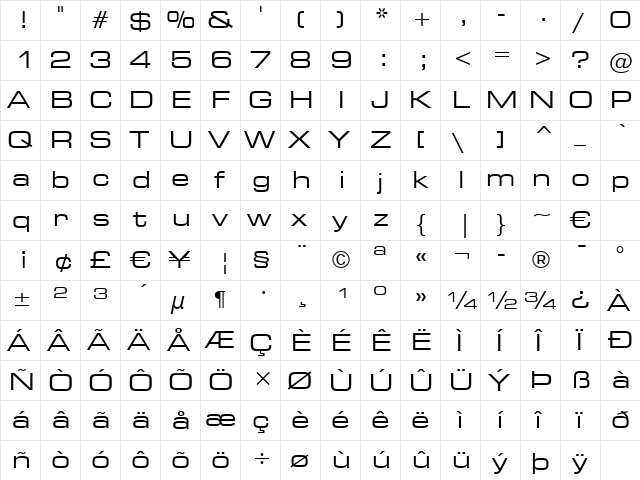
Square721 Ex BT Roman
Design Context for Square721 Ex BT Typeface
Square721 Ex BT takes a measured approach to typography — its balanced proportions and neutral character make it a reliable workhorse for both digital and print work.